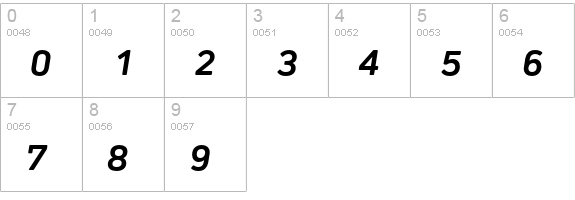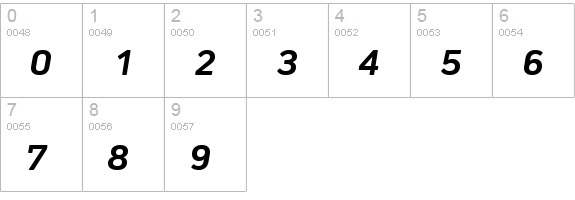
Kiro Bold Italic is a strong, high-contrast, italic variant in the Kiro typeface family \xE2\x80\x94 well suited to headlines, attention-grabbing titles, and strong calls-to-action.
Introducing Kiro Bold Italic, a contemporary and stylish font that exudes confidence and sophistication. With its bold strokes and elegant italics, Kiro Bold Italic is perfect for adding a touch of modern flair to your designs. This versatile typeface is ideal for a wide range of projects, from branding to editorial design. What sets Kiro Bold Italic apart is not just its striking aesthetics, but also the fact that it is available for free download at FontsMarket.com. That's right, you can easily access this beautifully crafted font without any cost, making it a valuable addition to your font library. Whether you're a designer looking to elevate your work or a creative enthusiast in search of a unique typeface, Kiro Bold Italic is sure to impress with its bold yet refined appearance. Download it today and unleash your creativity with this stylish and free font.